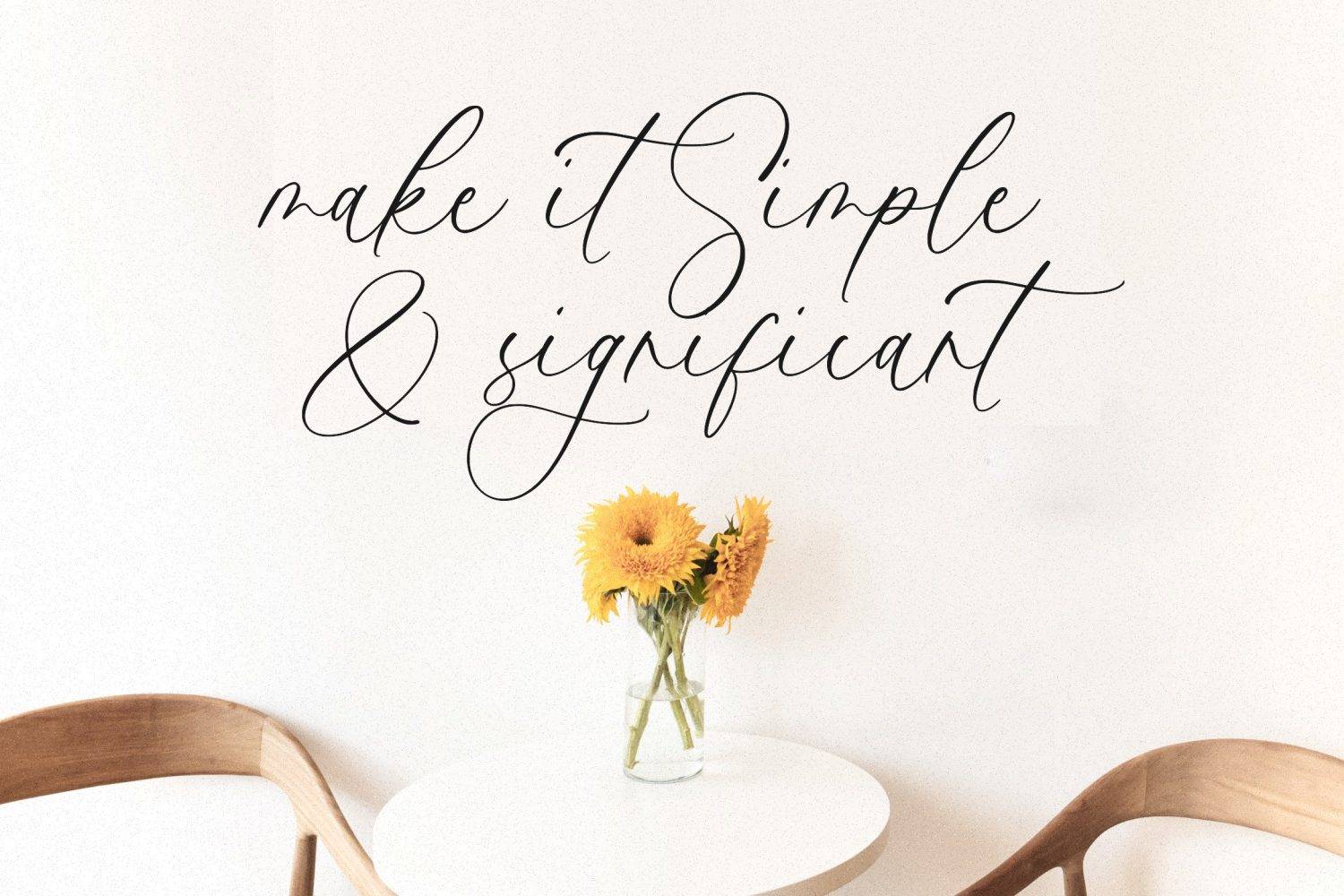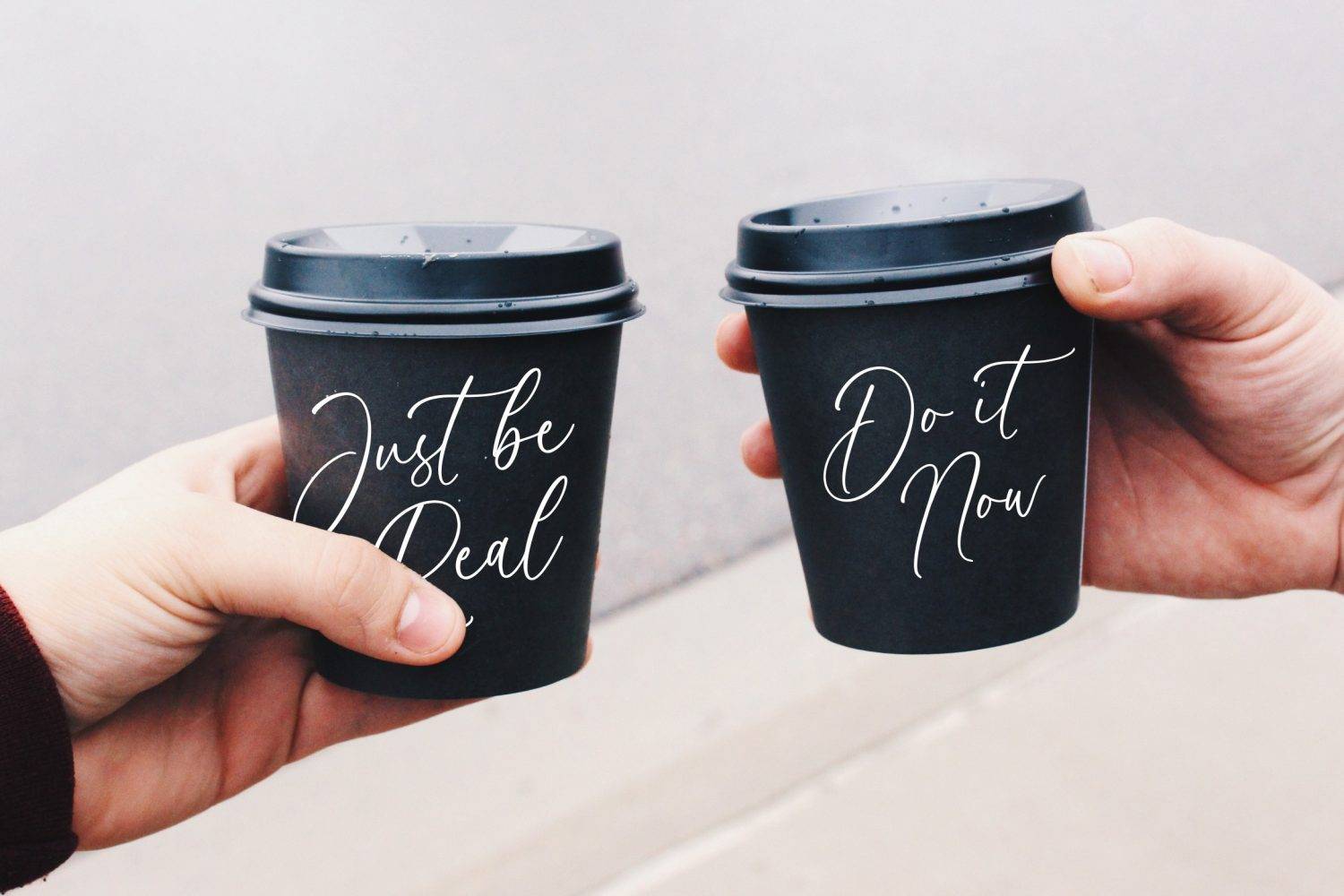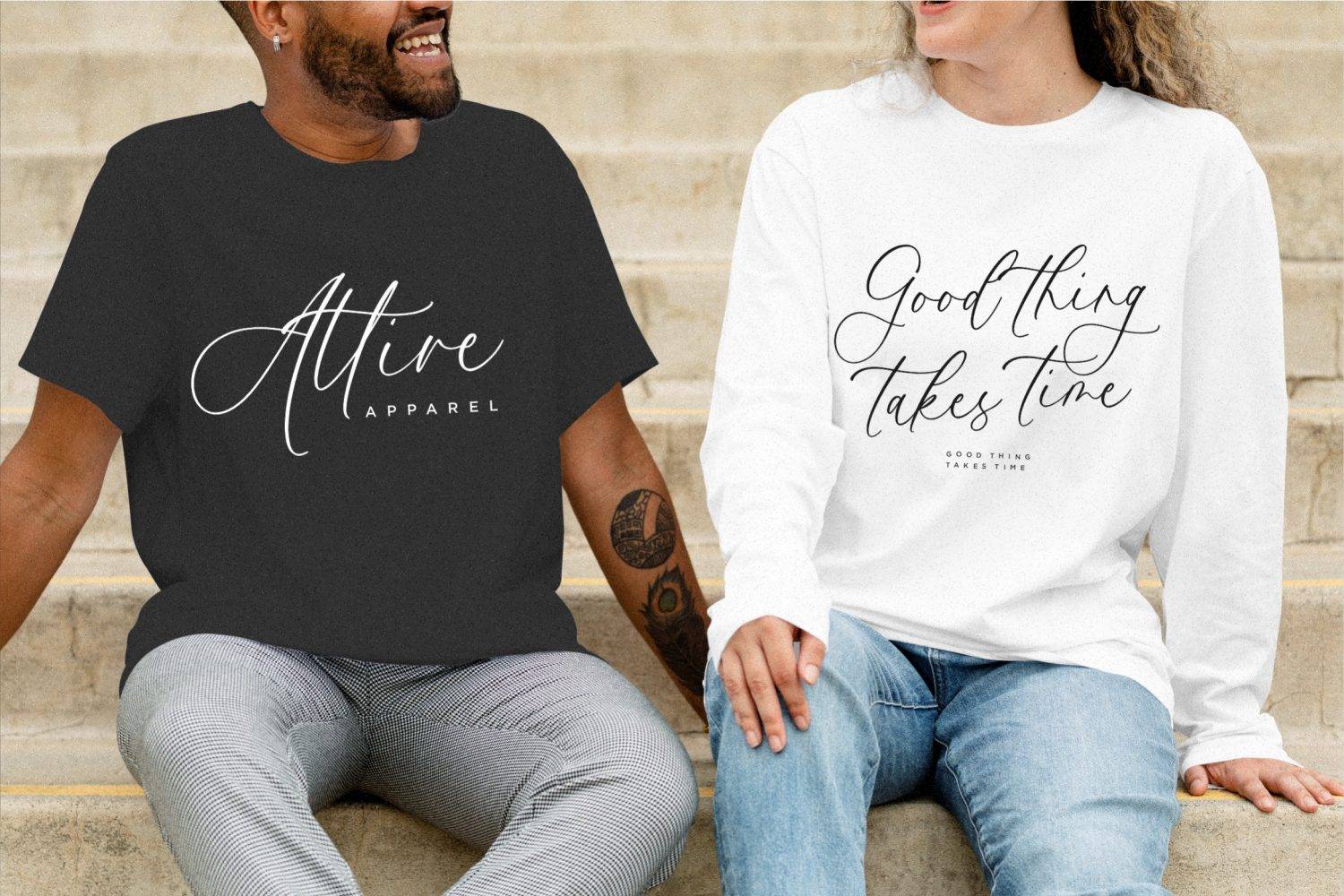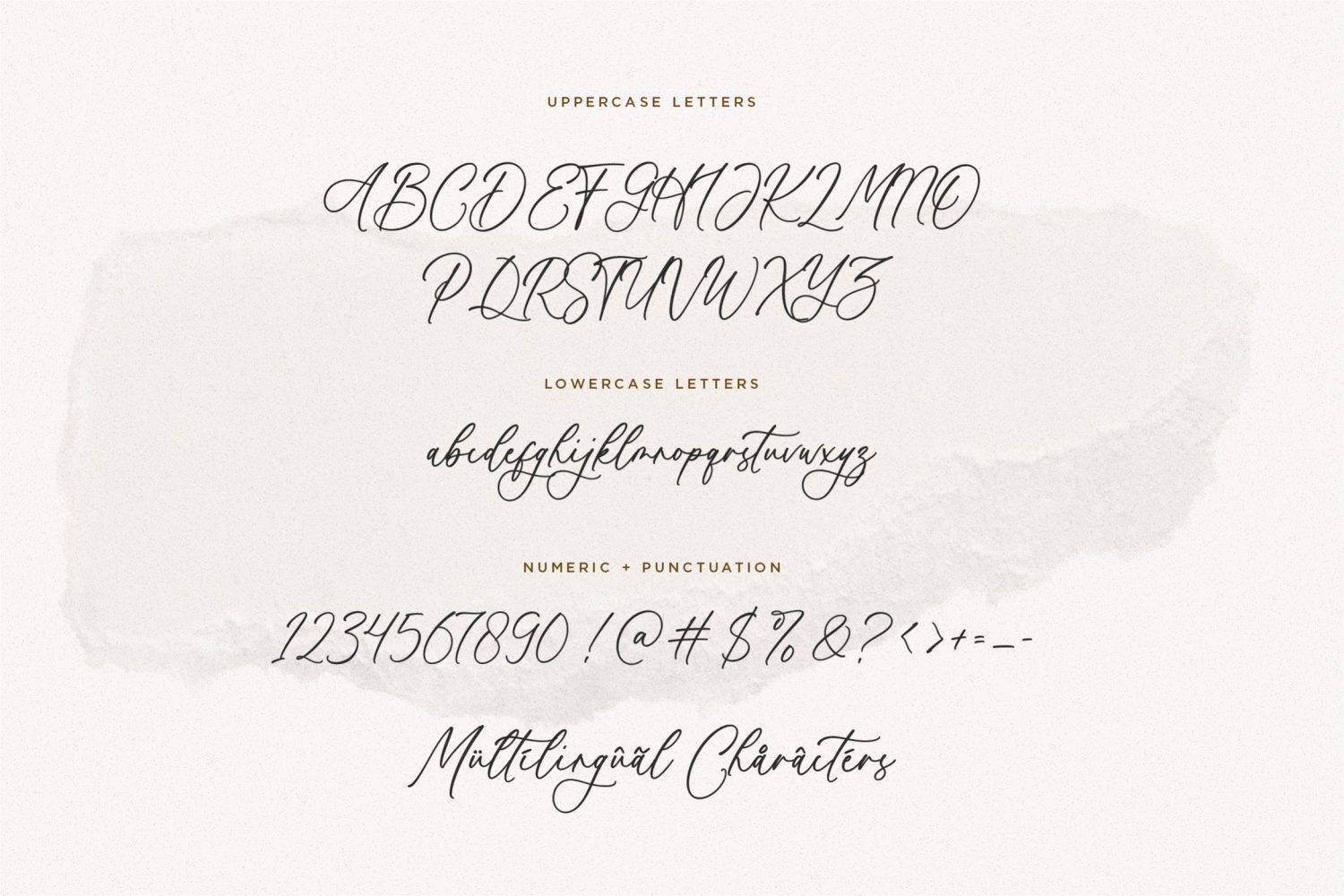
Pathways is an elegant, delicate script font characterized by its thin, flowing strokes and graceful swashes. Its light weight and high contrast create a refined, sophisticated feel, perfect for luxury branding, wedding invitations, and stylish editorial designs where a touch of romance and elegance is desired. The font’s fluid letterforms and airy spacing make it ideal for expressive headlines and decorative use rather than dense body text.
Pathways Font
About Pathways Font